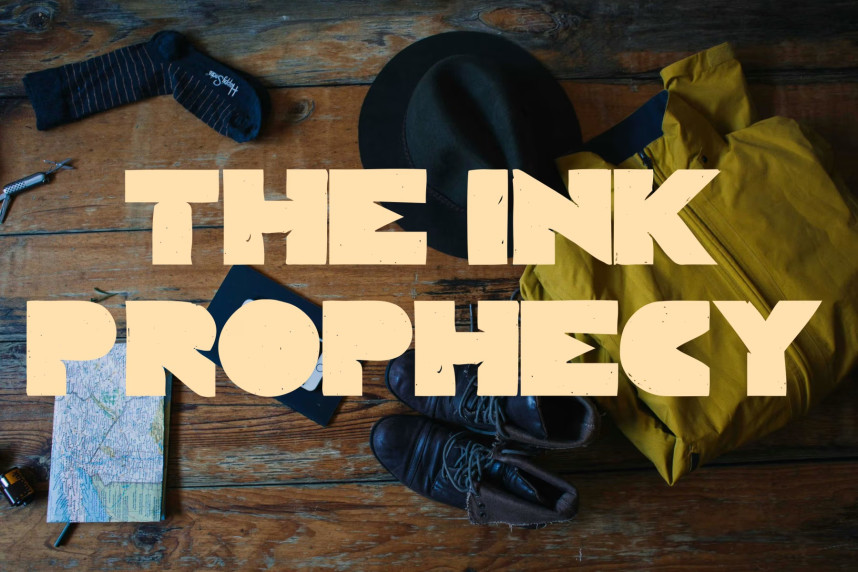
Throne Of Shadows Font
Throne Of Shadows Font is a dramatic, gothic-inspired display font with sharp, angular letterforms that create a mysterious and powerful visual impact. Its bold style and dark aesthetic give designs a sense of strength and intrigue, making it well suited for headlines, posters, fantasy branding, game titles, and creative projects that need a bold, atmospheric typographic presence.